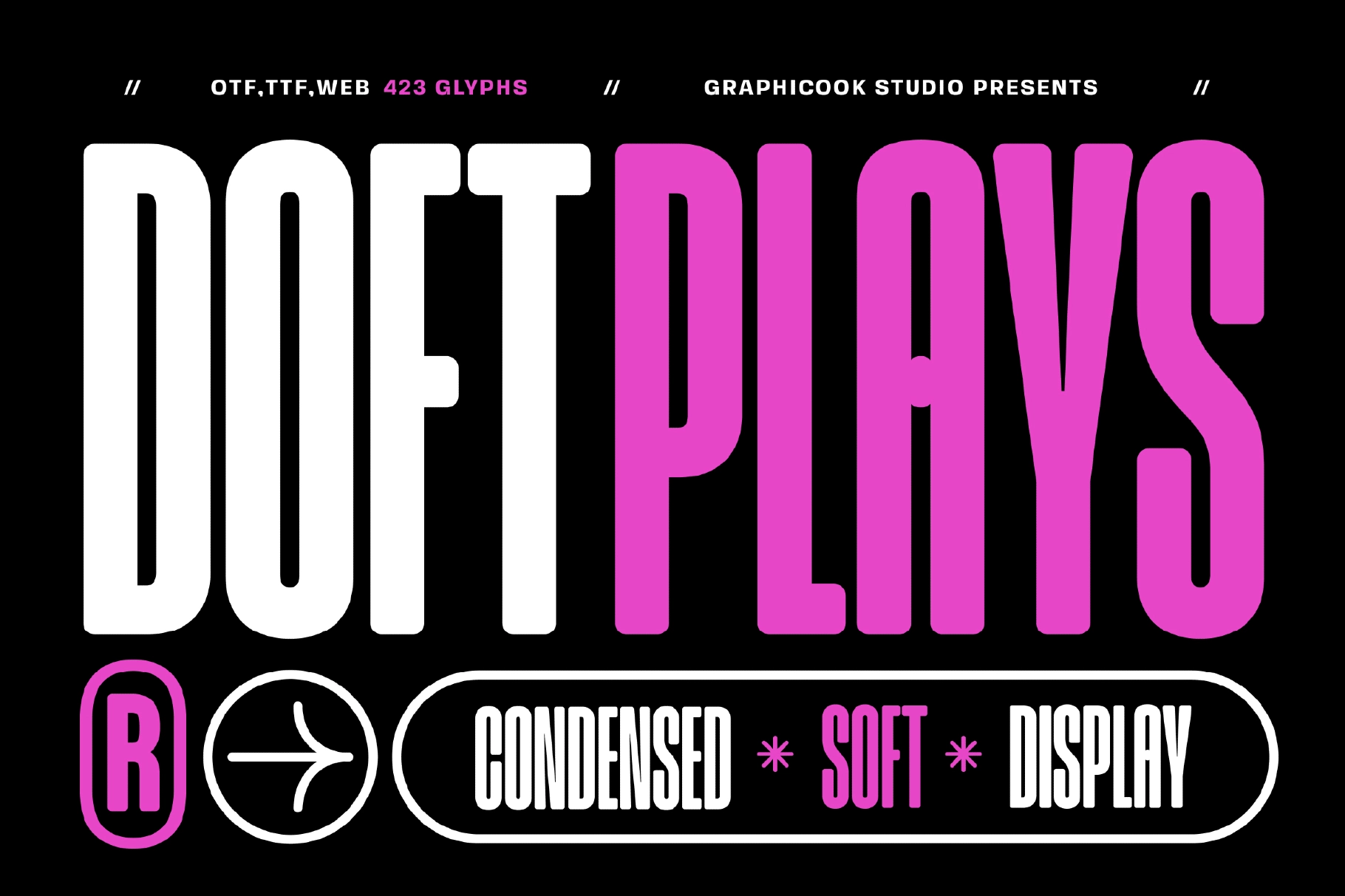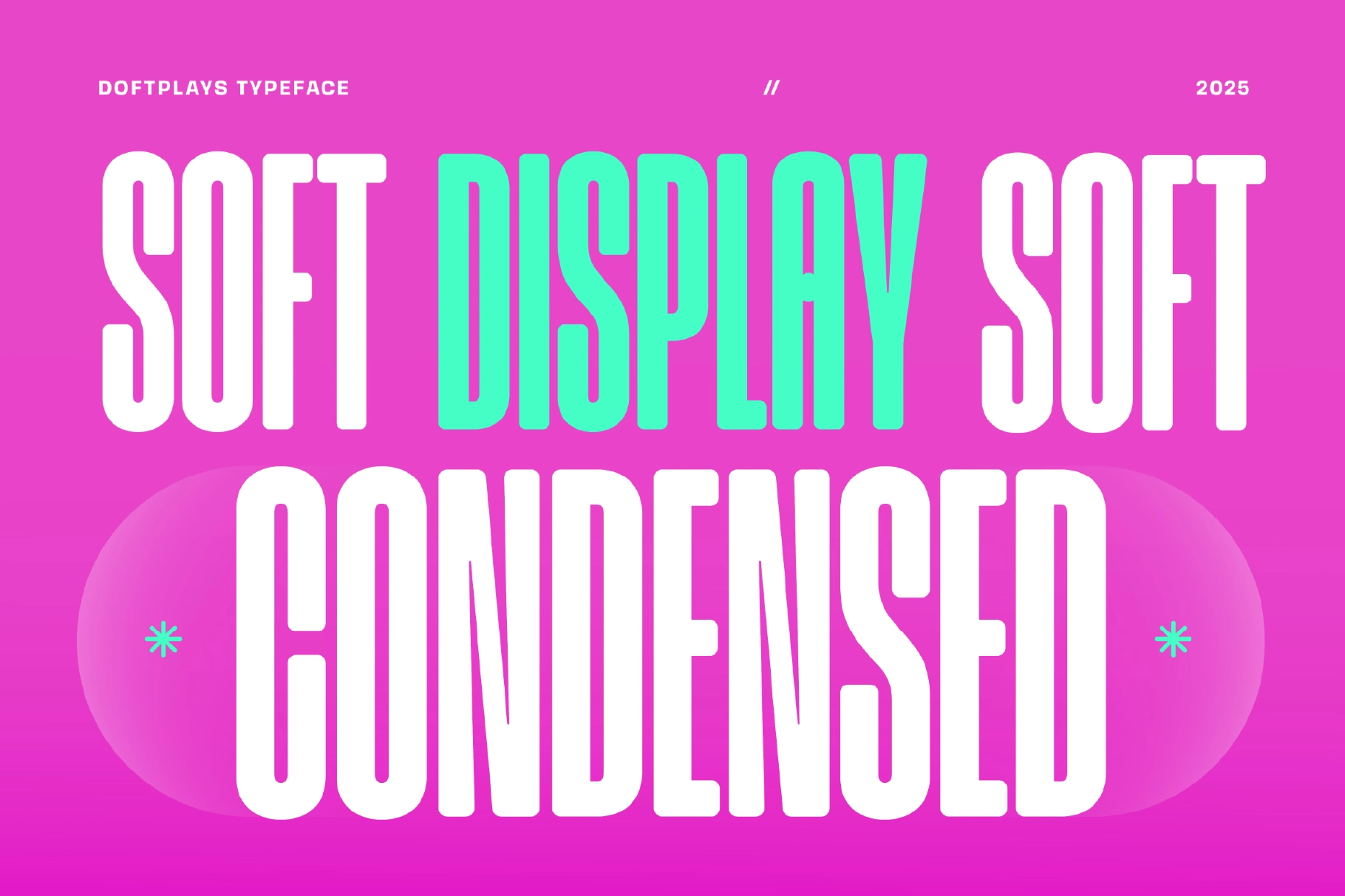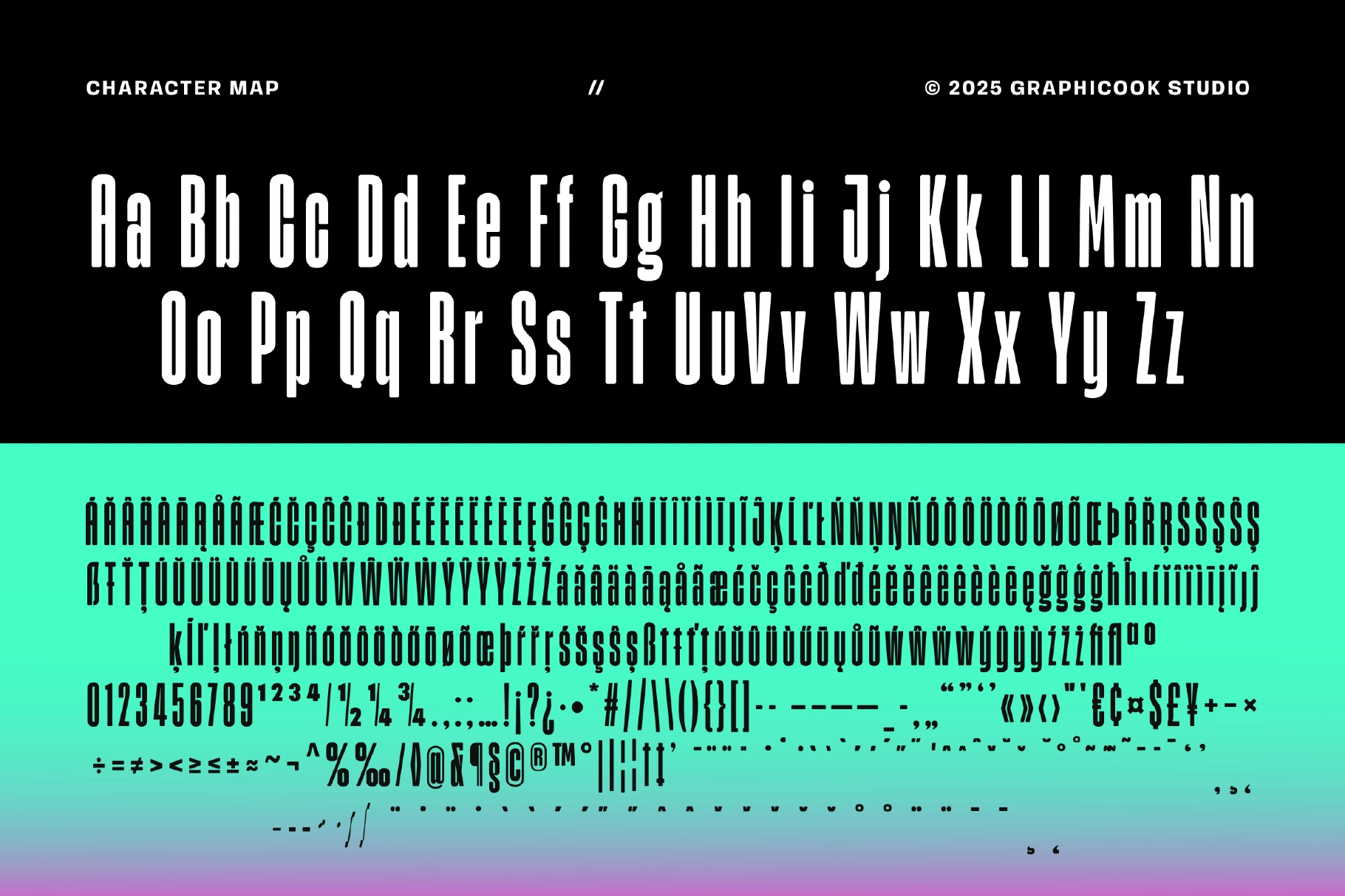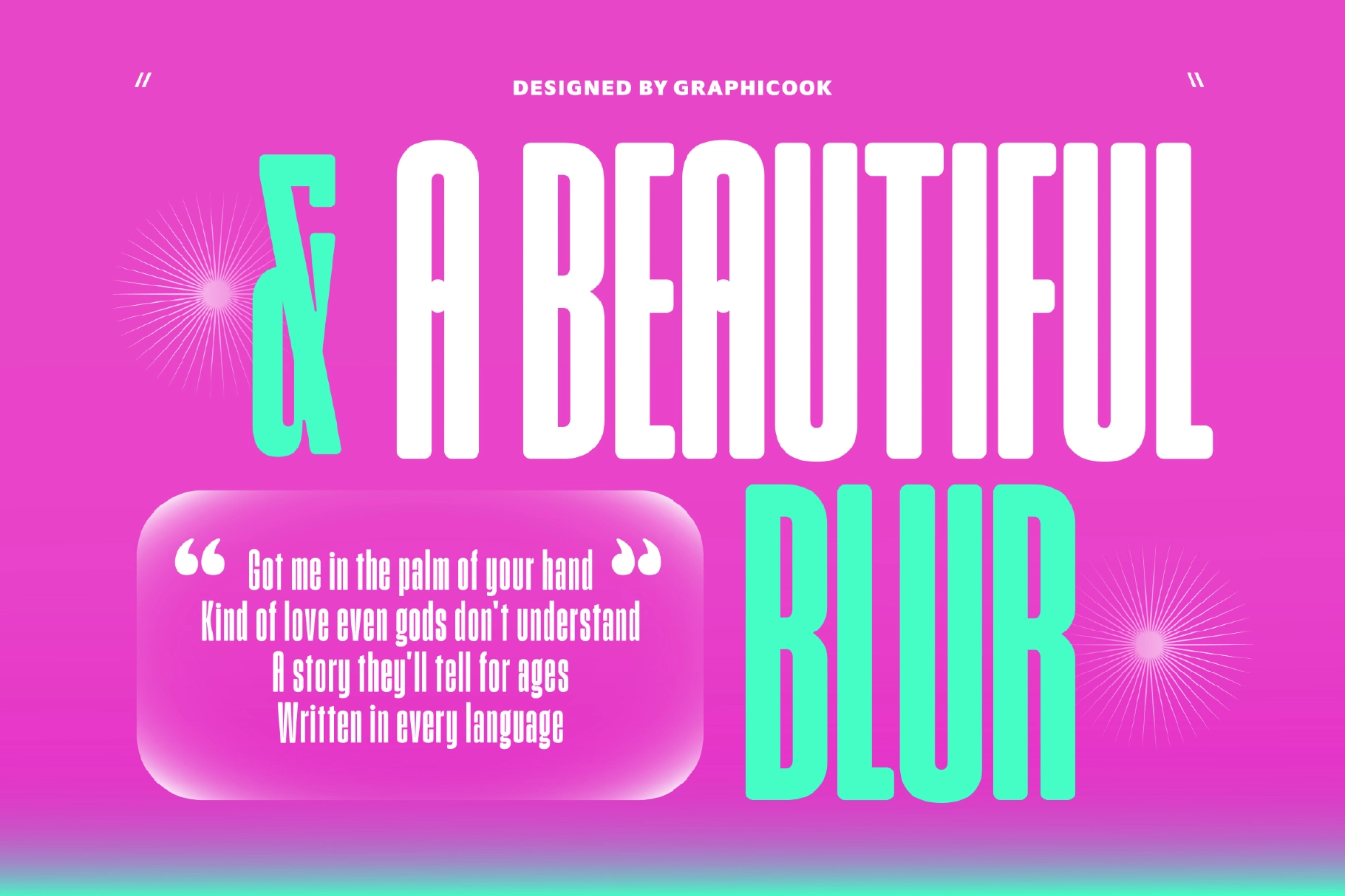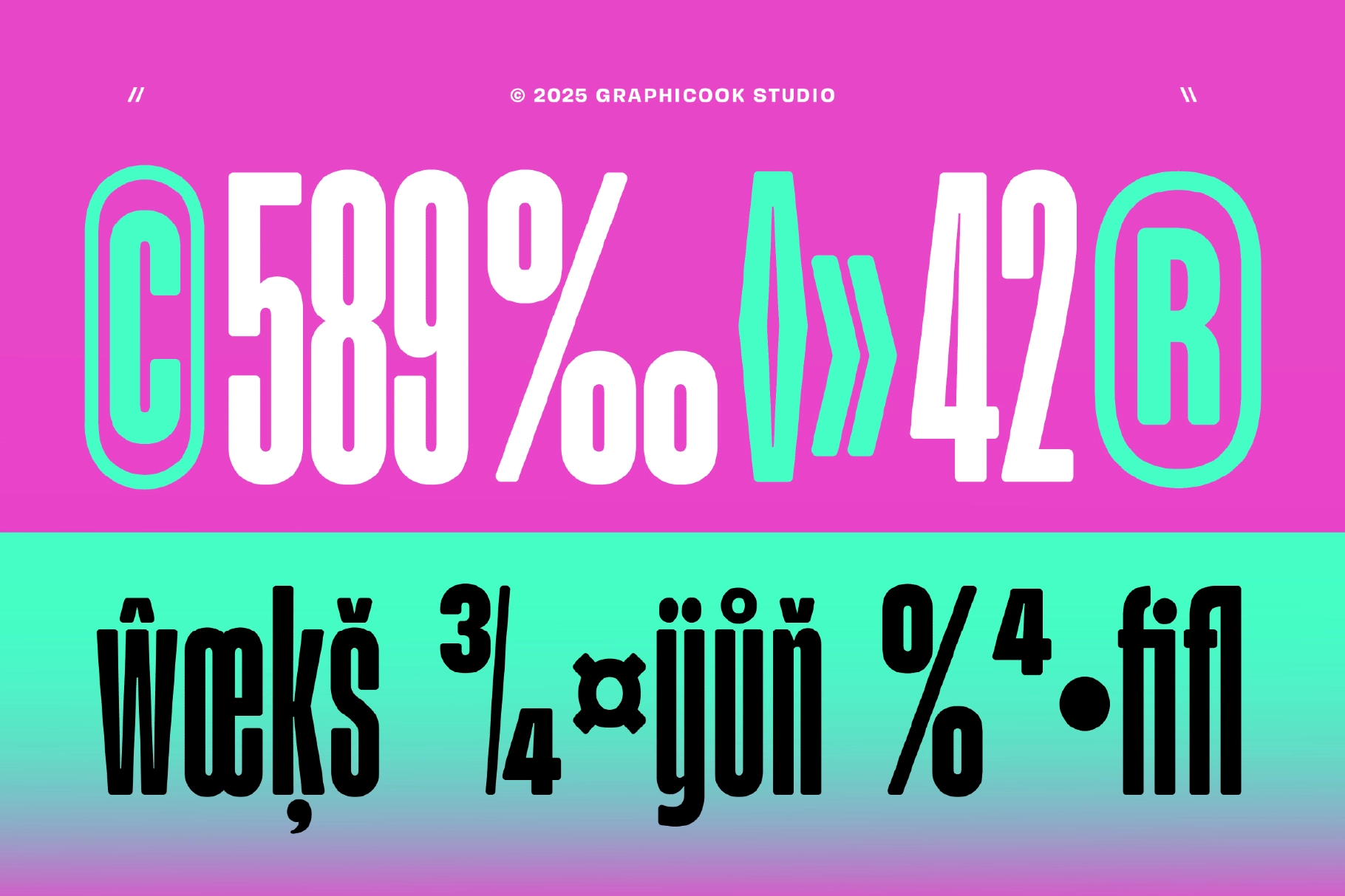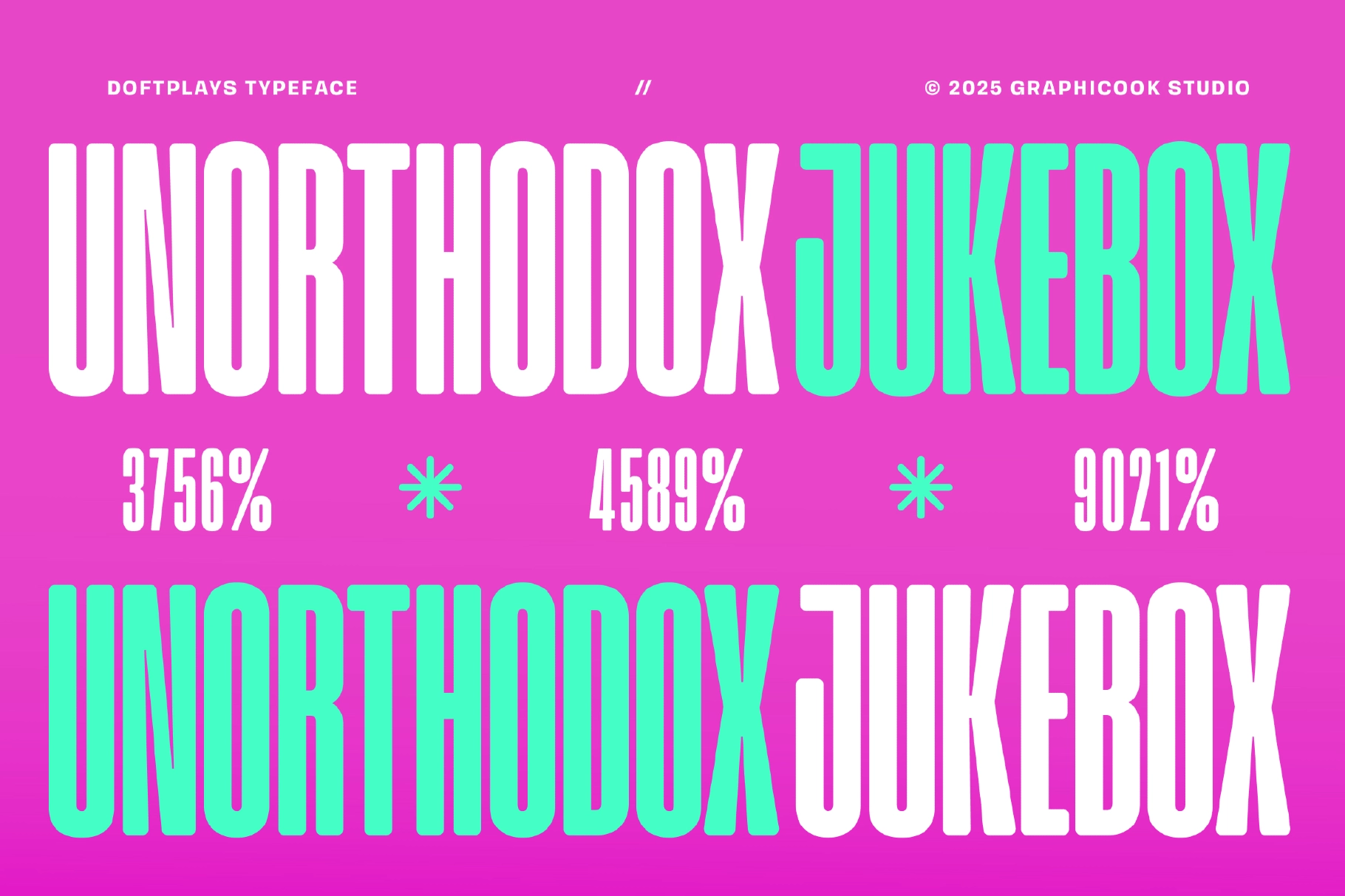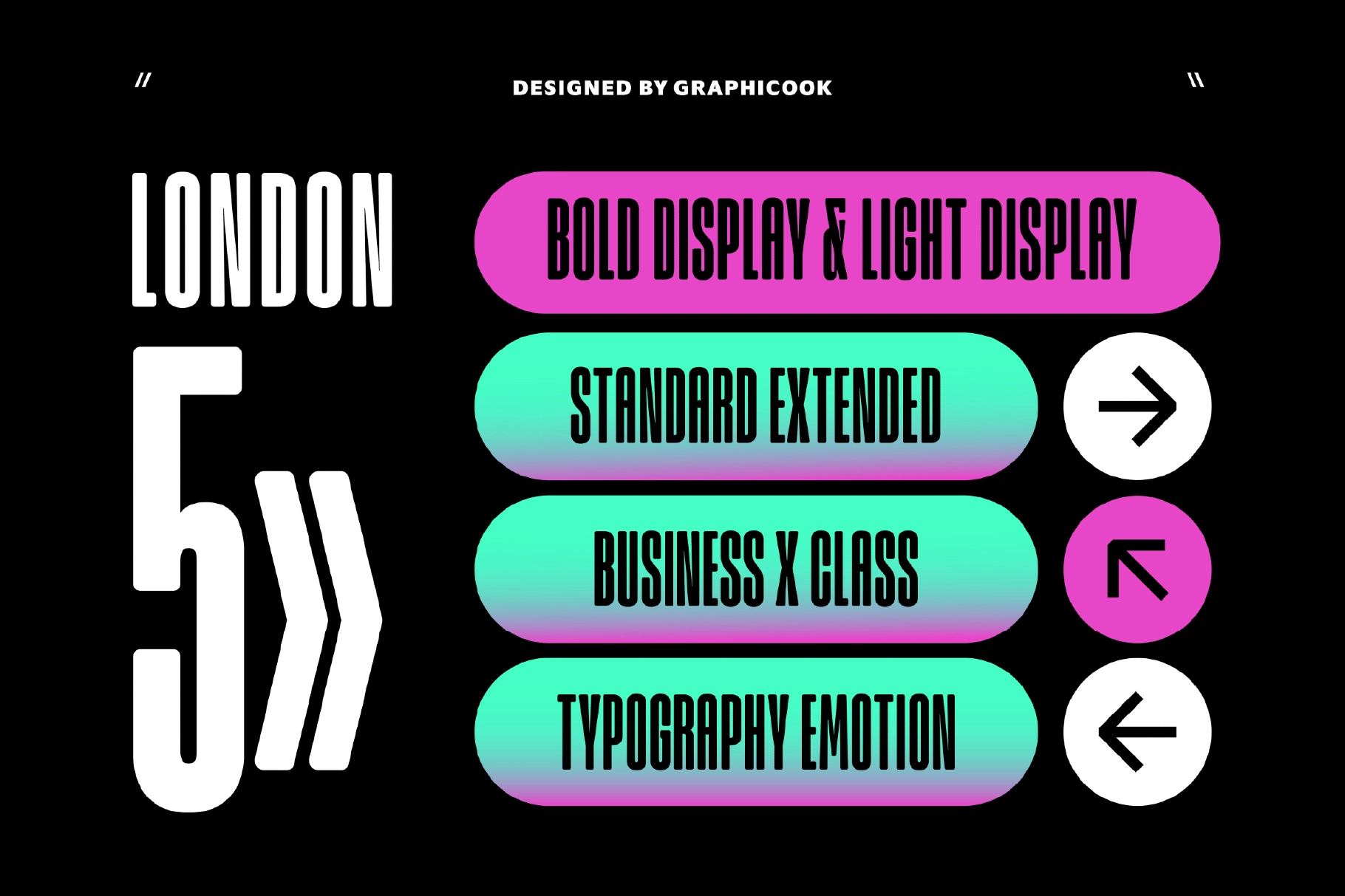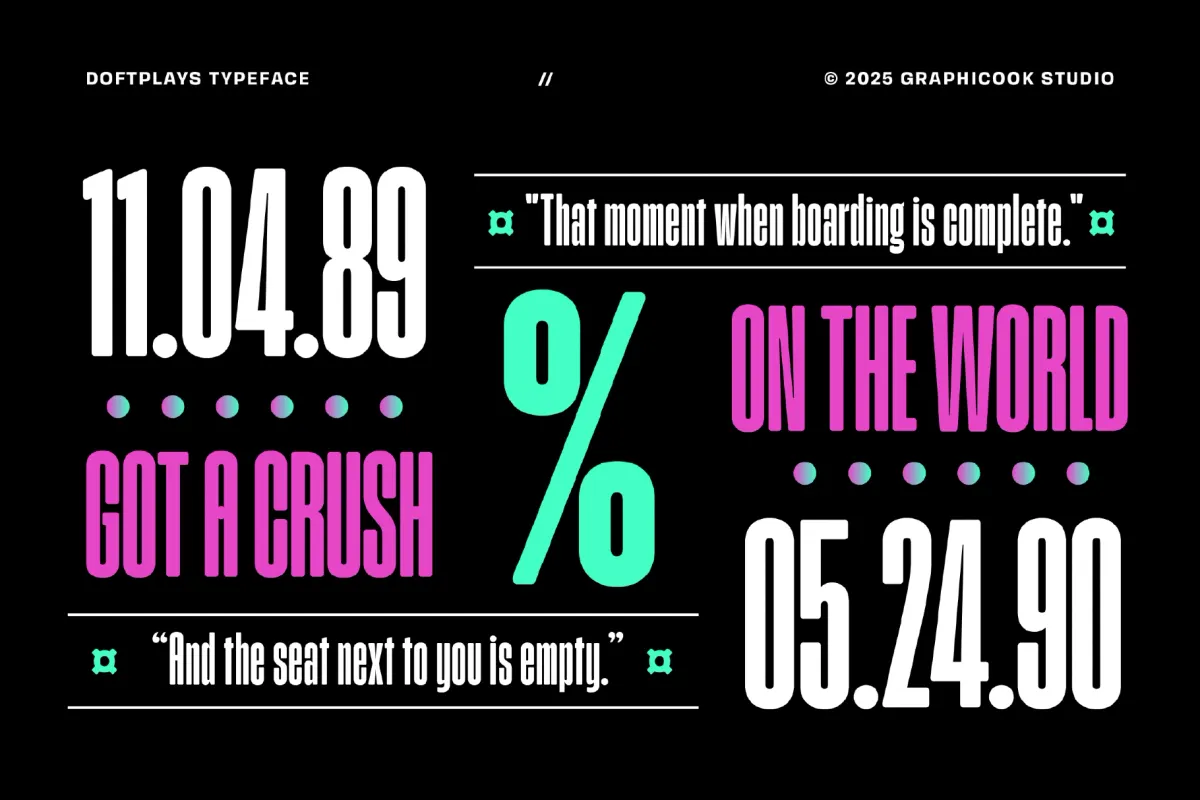
Doftplays Font
Doftplays
Doftplays is a condensed font with rounded corners that delivers a strong visual impact and captures attention. It's ideal for designs that want to appear modern, bold, and playful.